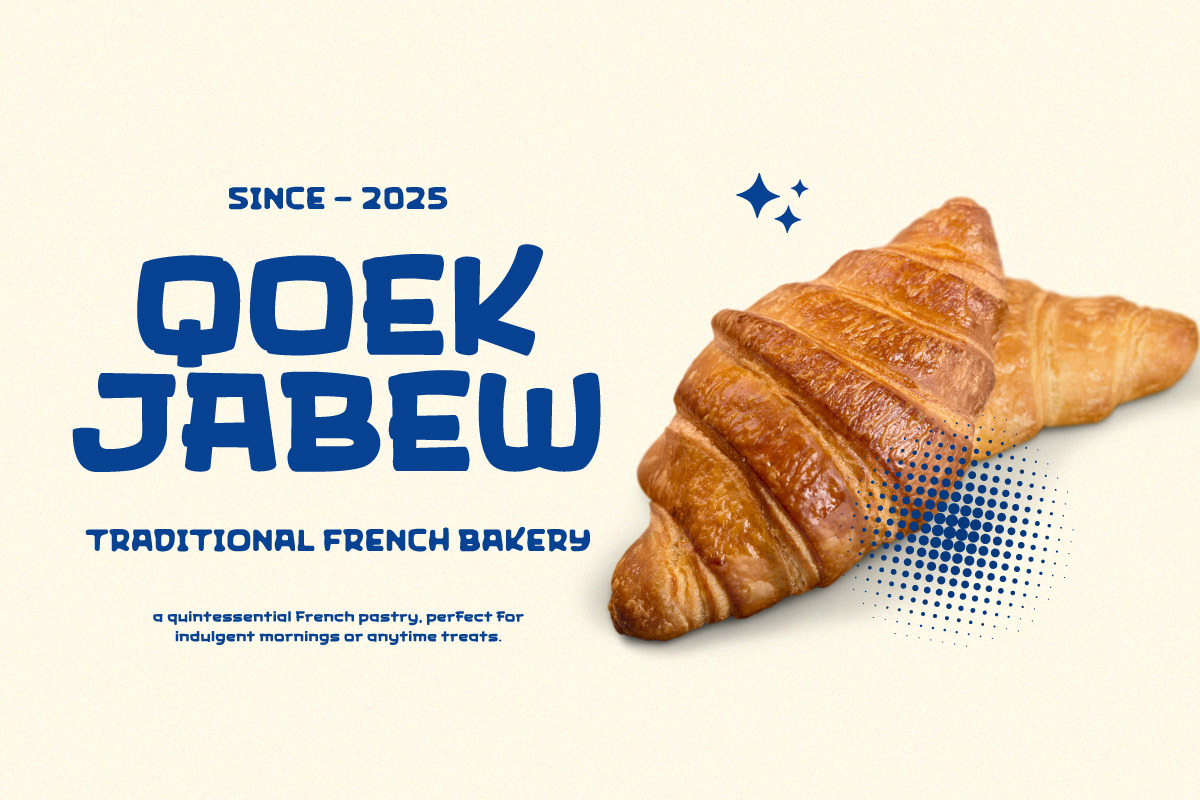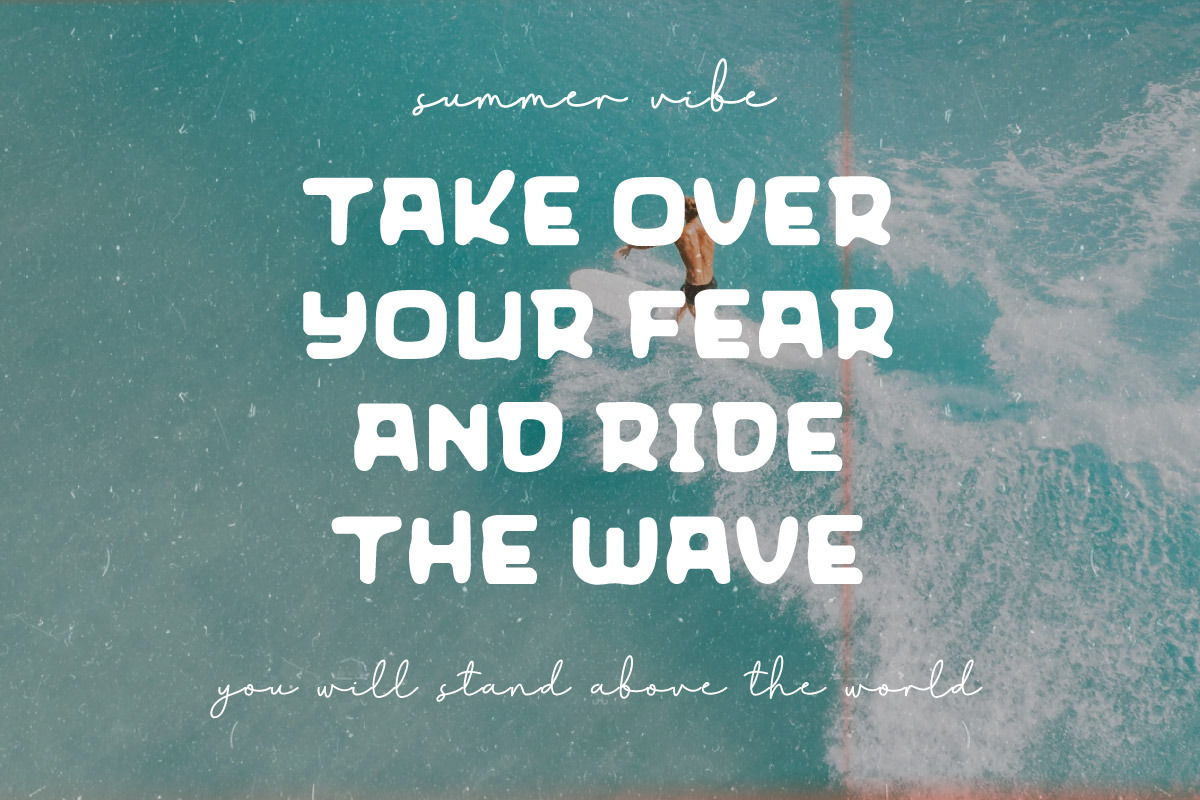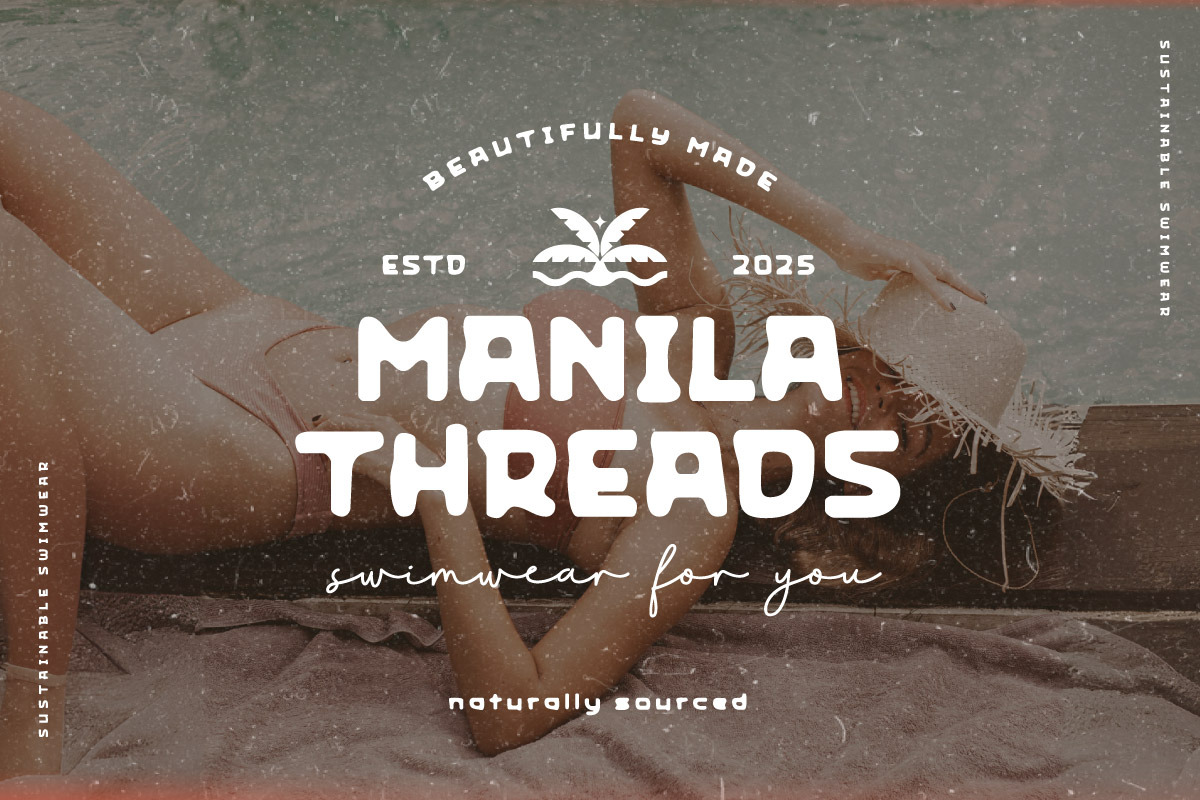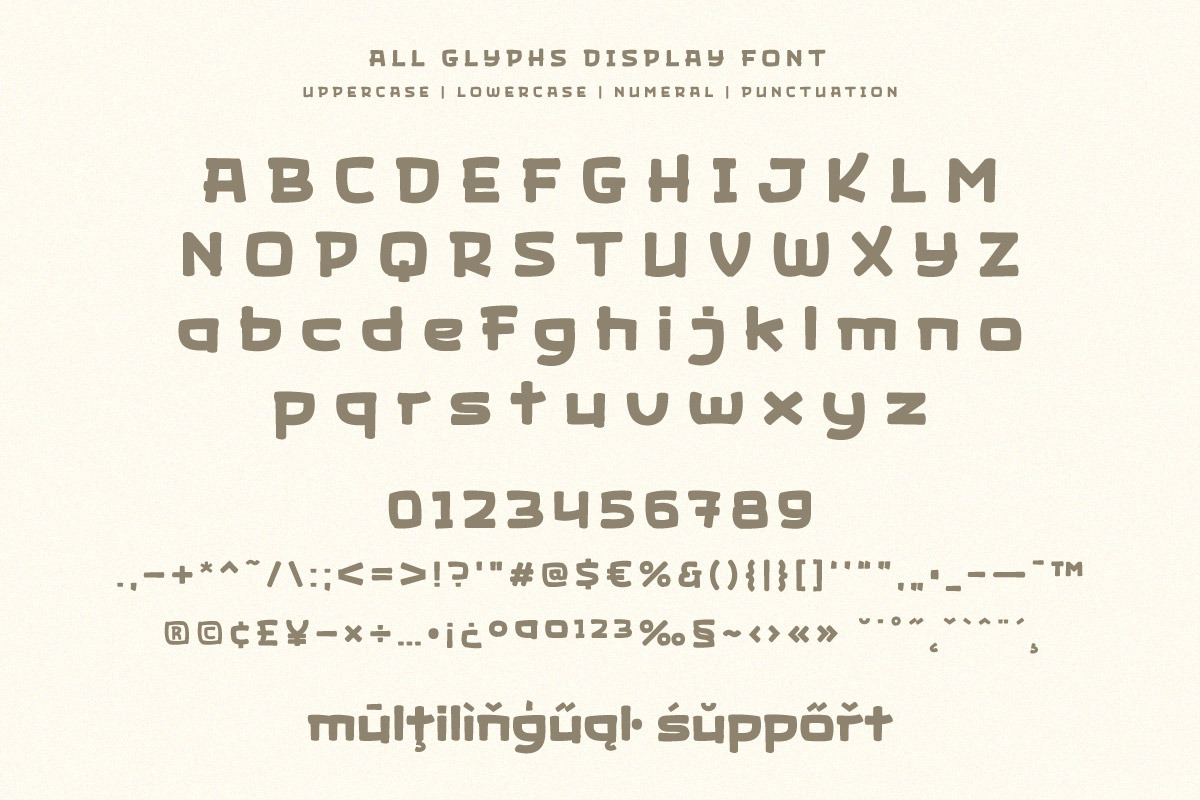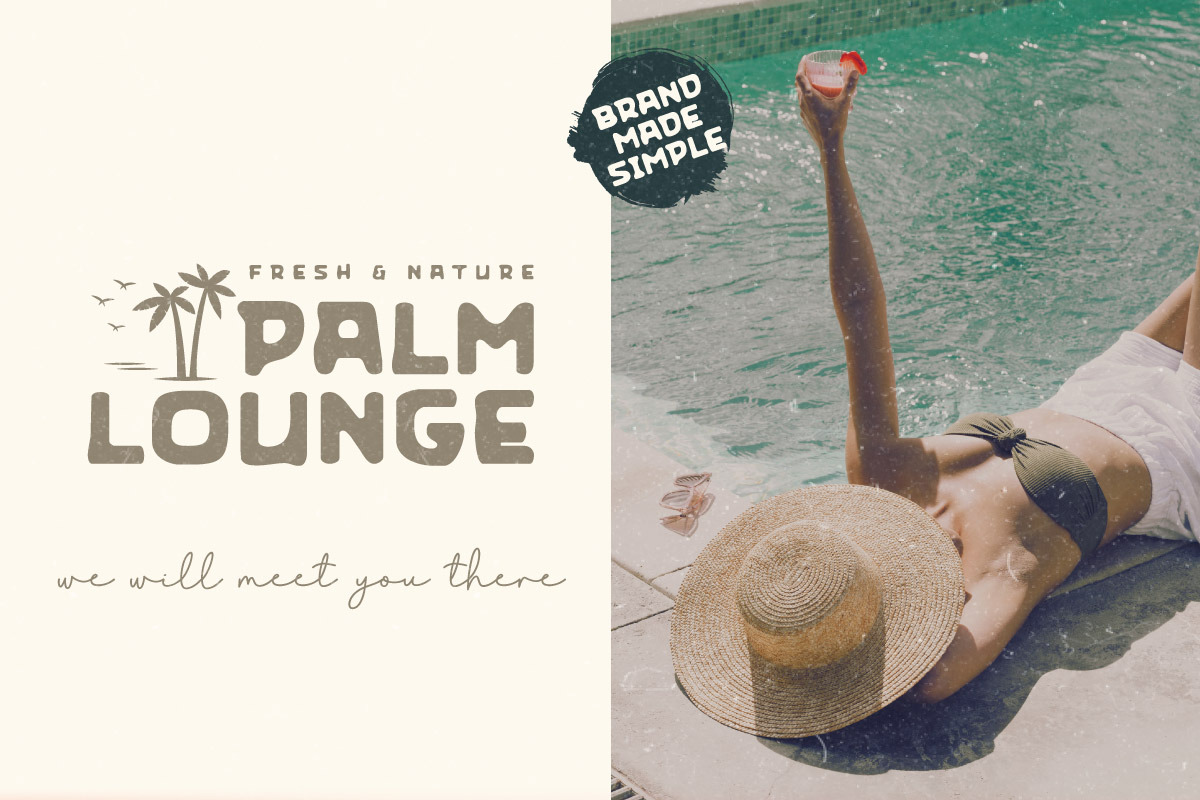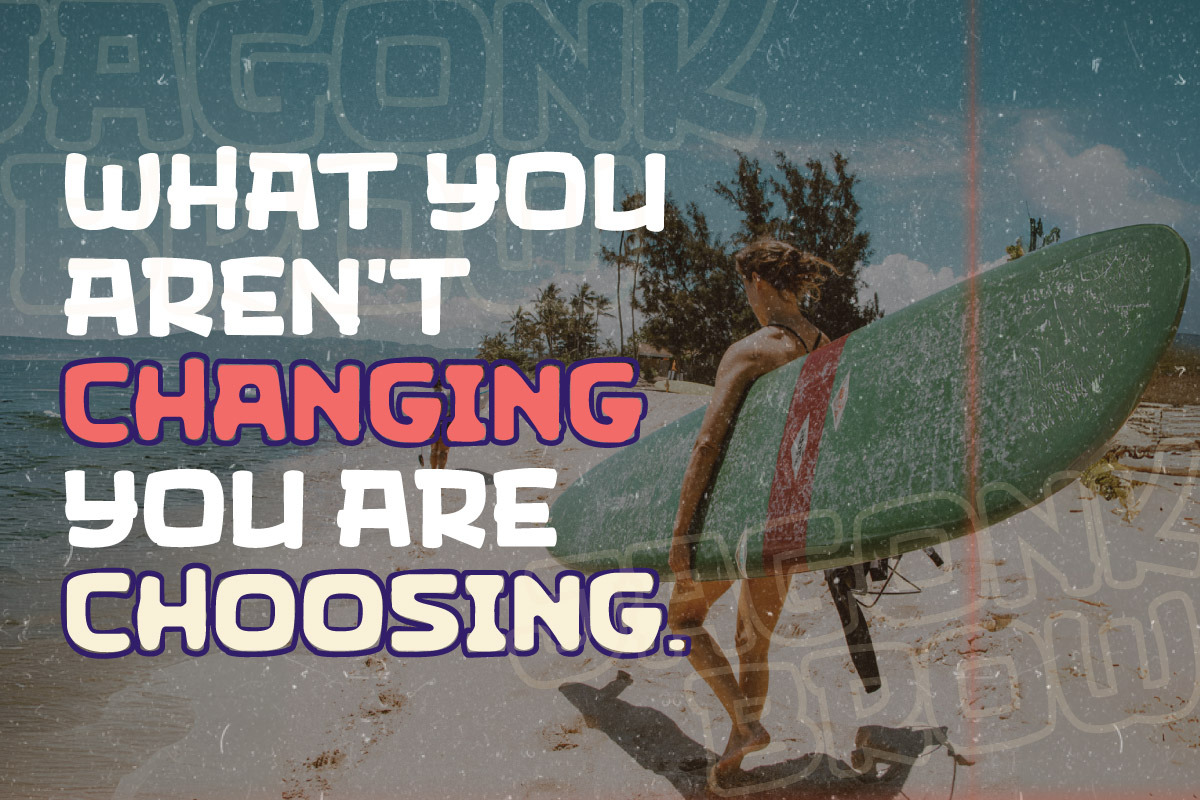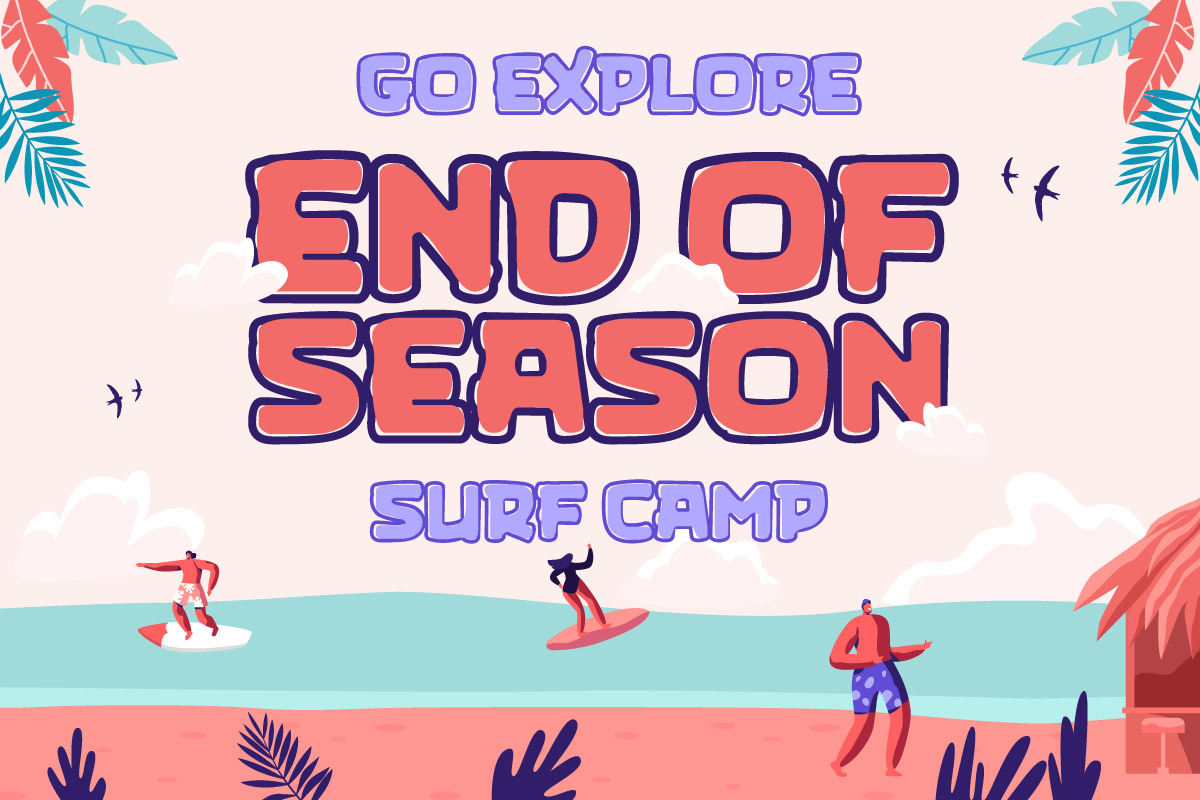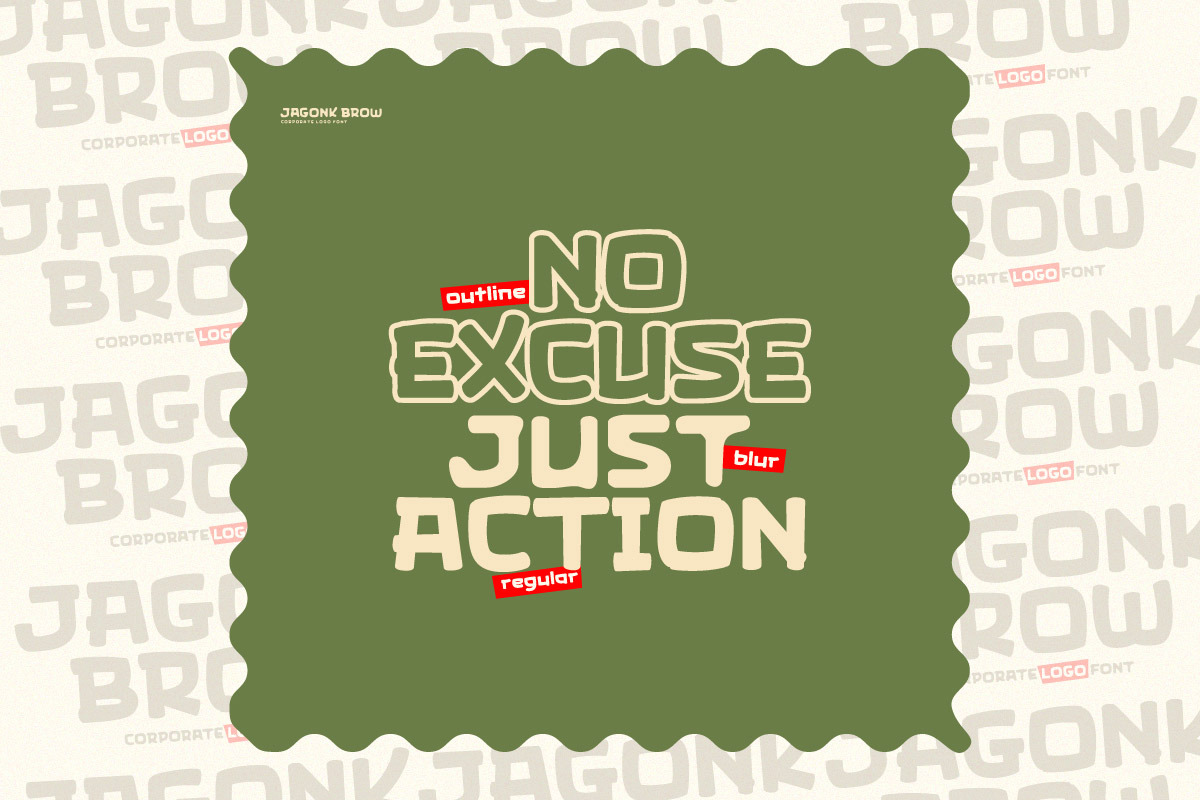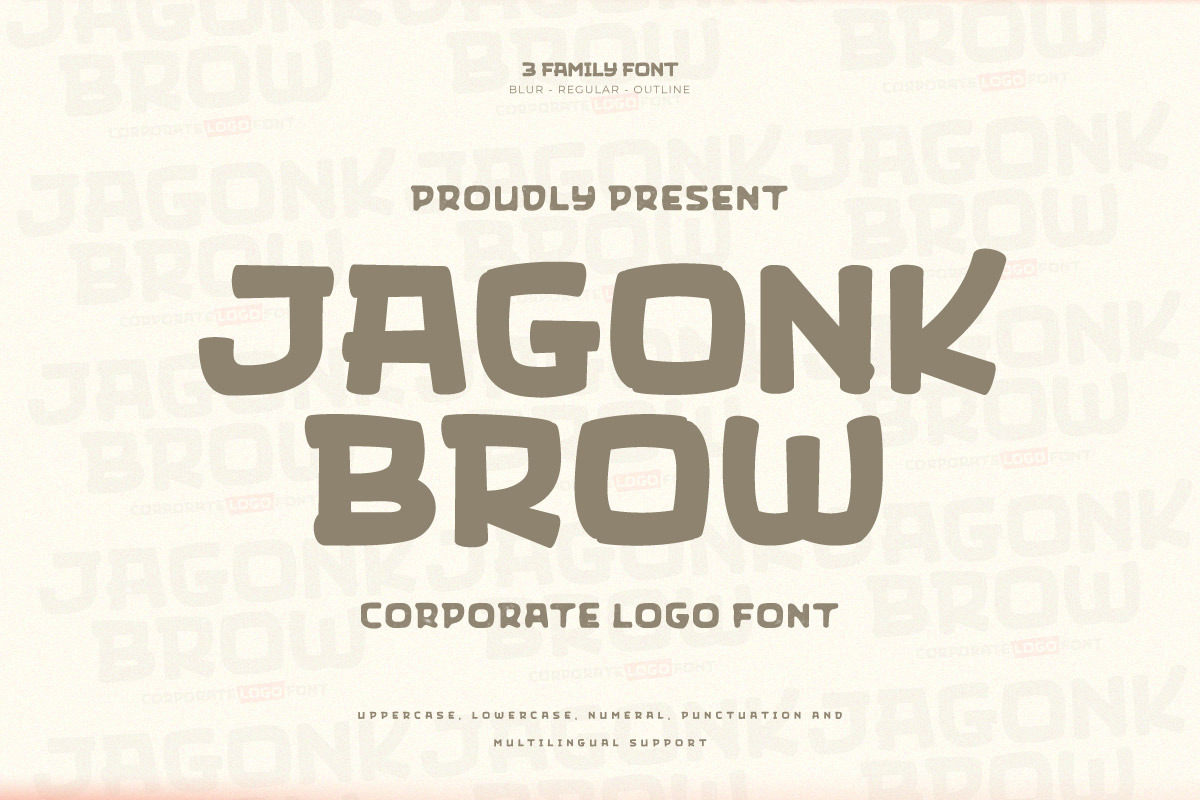
Jagonk Brow - Display Font
Jagonk Brow is a bold and distinctive corporate logo font designed to give your brand a strong, modern presence. With three unique styles—Regular, Blur, and Outline—Jagonk Brow offers versatile options for crafting eye-catching logos, packaging, branding materials, and digital assets.
The Regular style provides a clean and professional look, perfect for modern businesses and tech brands. The Blur version adds an experimental, futuristic touch—ideal for creative industries and standout visuals. Meanwhile, the Outline style gives your design a sleek, stylish twist that works beautifully for minimal yet impactful layouts.
With its geometric structure and bold character, Jagonk Brow helps you build a confident visual identity while giving you the flexibility to adapt across different branding needs.